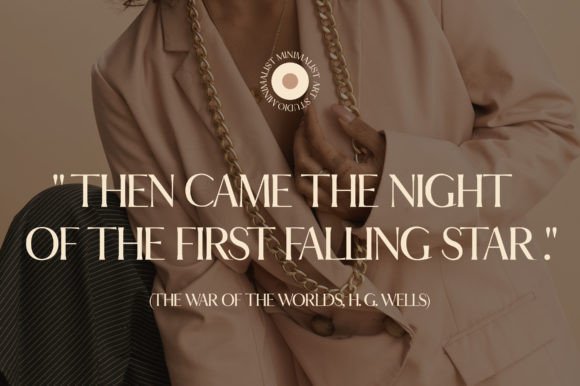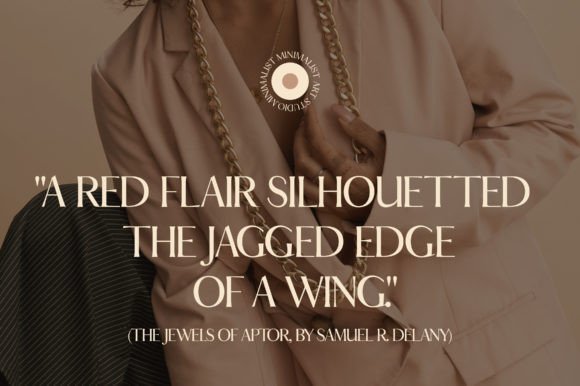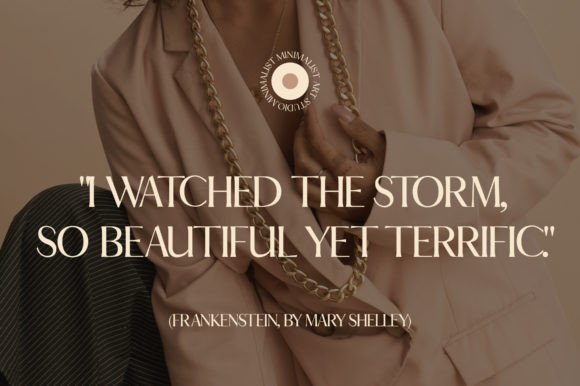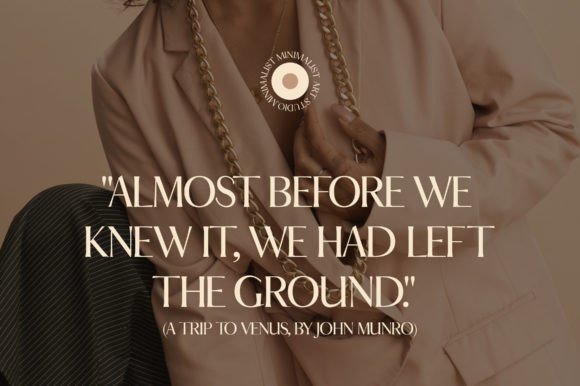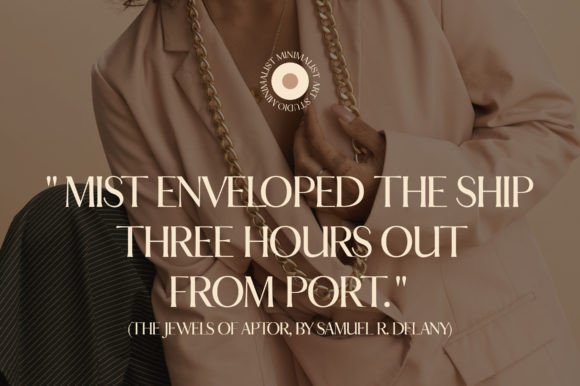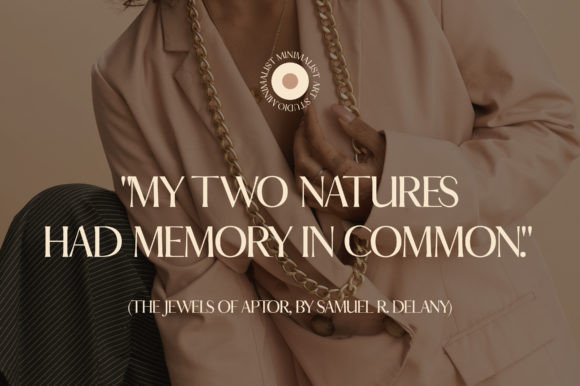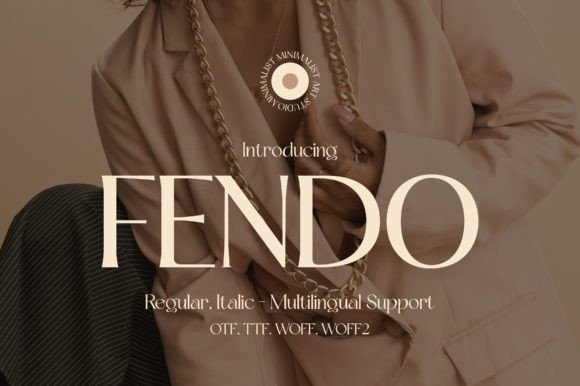
Introducing Fendo Font: Elevate Your Designs with Elegance and Sophistication
In the world of design, typography plays a crucial role in conveying messages, expressing creativity, and capturing the audience’s attention. A well-chosen font can make all the difference in transforming a design from ordinary to extraordinary. If you’re a designer or craftsperson looking for a beautiful and sophisticated serif font to add a touch of elegance to your projects, look no further than Fendo Font.
The Beauty of Fendo Font
Fendo is a stunning serif font that boasts clean lines and a minimalist design, making it perfect for a wide range of applications, including branding, advertising, editorial, and web design. Its classic serifs are delicate yet strong, giving your designs a timeless look that exudes sophistication and refinement. Whether you’re working on a large-scale project like a billboard or a small-scale project like a business card, Fendo is the ideal choice.
Key Features of Fendo Font
Fendo Font comes with a range of features that make it an excellent addition to any design toolkit. Some of its key features include:
- Uppercase and lowercase letters: Fendo includes a full set of uppercase and lowercase letters, allowing you to create stunning headlines and body text.
- Numbers and punctuation: The font also includes a range of numbers and punctuation marks, making it perfect for creating professional-looking designs.
- Clean and minimalist design: Fendo’s clean and minimalist design makes it highly versatile and suitable for both traditional and contemporary designs.
- Highly legible: Fendo’s classic serifs and clean lines ensure that your text is highly legible, even at small sizes.
The Versatility of Fendo Font
One of the standout features of Fendo Font is its versatility. Its clean and minimalist design makes it suitable for a wide range of applications, from large-scale projects like billboards and posters to small-scale projects like business cards and brochures. Whether you’re working on a traditional design project or a contemporary one, Fendo is the perfect choice.
Why Choose Fendo Font?
So, why should you choose Fendo Font for your design projects? Here are just a few reasons:
- Elegance and sophistication: Fendo adds a touch of elegance and sophistication to any design project, making it perfect for designers who want to create stunning designs.
- Timeless look: Fendo’s classic serifs and clean lines give your designs a timeless look that will never go out of style.
- Highly versatile: Fendo is highly versatile and suitable for a wide range of applications, making it an excellent addition to any design toolkit.
- Easy to read: Fendo’s clean lines and classic serifs ensure that your text is highly legible, even at small sizes.
In conclusion, Fendo Font is a beautiful and sophisticated serif font that adds a touch of elegance to any design project. Its clean lines, minimalist design, and classic serifs make it perfect for a wide range of applications, from branding and advertising to editorial and web design. With its highly legible text, versatile design, and timeless look, Fendo is the perfect choice for designers and craftspersons who want to create stunning designs that make a lasting impression. Add Fendo to your toolkit today and start elevating your designs with elegance and sophistication.